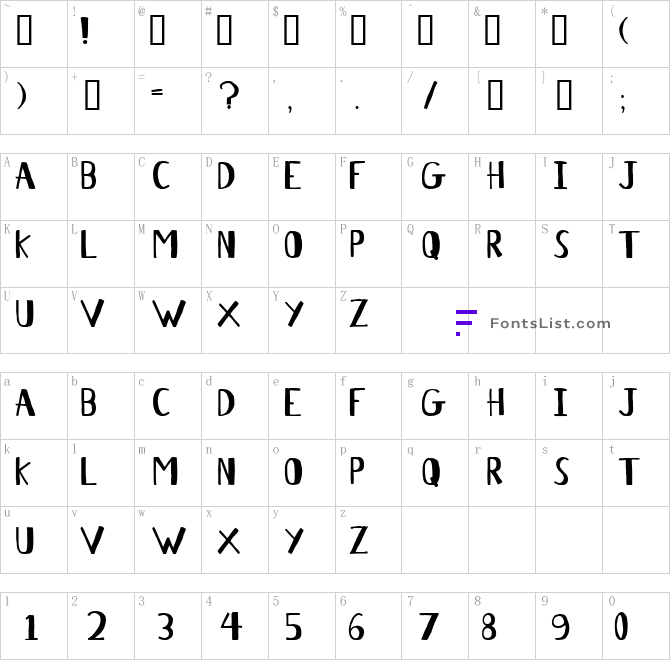
- Font Name:Antelope H
Antelope-H-copy-2-.ttf is a very beautiful artistic font, Antelope-H-copy-2-.ttf is widely used in the design and printing of various books and pictures,Antelope-H-copy-2-.ttf has a strong visual impact,Antelope-H-copy-2-.ttf is a commonly used font in newspapers, magazines and books, and is used in posters, e-commerce Poster design, store design, logo design, font design and other fields.Antelope-H-copy-2-.